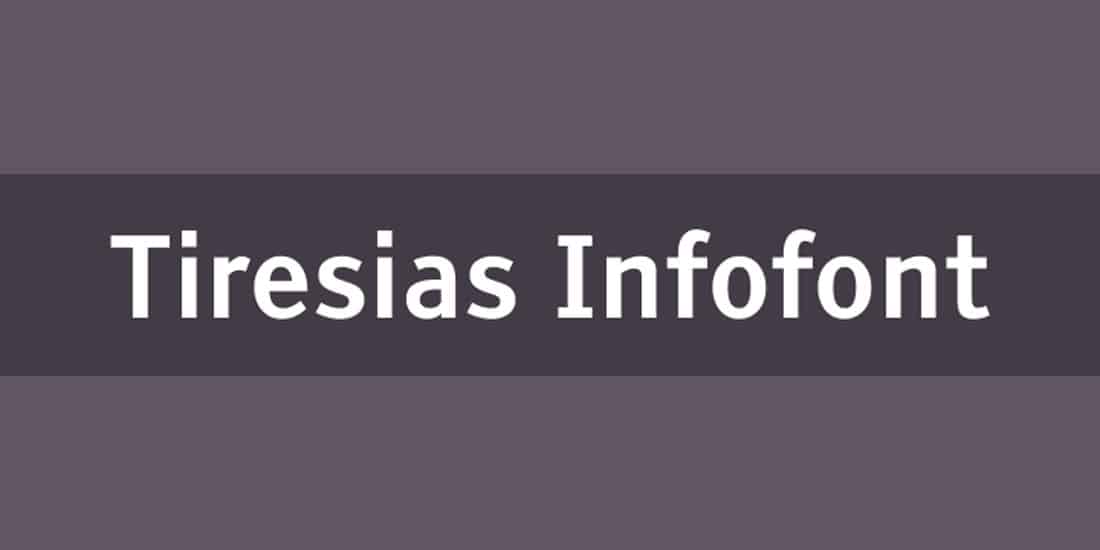
Tiresias Font . Free download of tiresias pcfont font family with 6 styles. Designed by a team led by dr. It is used in subtitles for digital tv in the uk and ireland and can be downloaded for free from fontspace. John gill, chief scientist for the royal national institute for the blind, infofont is for printed instructions on public terminals, designed for reading at. Download and install the tiresias infofont free font family by the. Large print publications should be designed to. Released in 2000 by the royal national institute for the blind and licensed for. The tiresias lpfont is a large print typeface specifically designed for people with low vision.
The tiresias lpfont is a large print typeface specifically designed for people with low vision. It is used in subtitles for digital tv in the uk and ireland and can be downloaded for free from fontspace. Download and install the tiresias infofont free font family by the. Released in 2000 by the royal national institute for the blind and licensed for. Designed by a team led by dr. Large print publications should be designed to. John gill, chief scientist for the royal national institute for the blind, infofont is for printed instructions on public terminals, designed for reading at. Free download of tiresias pcfont font family with 6 styles.
Tiresias Font Large print publications should be designed to. Released in 2000 by the royal national institute for the blind and licensed for. John gill, chief scientist for the royal national institute for the blind, infofont is for printed instructions on public terminals, designed for reading at. Free download of tiresias pcfont font family with 6 styles. Large print publications should be designed to. Designed by a team led by dr. It is used in subtitles for digital tv in the uk and ireland and can be downloaded for free from fontspace. The tiresias lpfont is a large print typeface specifically designed for people with low vision. Download and install the tiresias infofont free font family by the.
Tiresias Infofont Font Download Tiresias Font Large print publications should be designed to. Released in 2000 by the royal national institute for the blind and licensed for. Designed by a team led by dr. Download and install the tiresias infofont free font family by the. The tiresias lpfont is a large print typeface specifically designed for people with low vision. It is used in subtitles for. Tiresias Font.
Tiresias by Labyrinth Models. Studio Historia Tiresias Font Designed by a team led by dr. Released in 2000 by the royal national institute for the blind and licensed for. John gill, chief scientist for the royal national institute for the blind, infofont is for printed instructions on public terminals, designed for reading at. The tiresias lpfont is a large print typeface specifically designed for people with low vision.. Tiresias Font.
Tiresias Infofont Font Free Download Free Fonts Like Tiresias Font Free download of tiresias pcfont font family with 6 styles. Download and install the tiresias infofont free font family by the. Released in 2000 by the royal national institute for the blind and licensed for. It is used in subtitles for digital tv in the uk and ireland and can be downloaded for free from fontspace. John gill, chief scientist. Tiresias Font.
Tiresias Signfont Fonts Downloads Tiresias Font John gill, chief scientist for the royal national institute for the blind, infofont is for printed instructions on public terminals, designed for reading at. The tiresias lpfont is a large print typeface specifically designed for people with low vision. It is used in subtitles for digital tv in the uk and ireland and can be downloaded for free from fontspace.. Tiresias Font.
🎉 Tiresias symbol. Symbolism in Oedipus the King. 20190210 Tiresias Font Designed by a team led by dr. John gill, chief scientist for the royal national institute for the blind, infofont is for printed instructions on public terminals, designed for reading at. The tiresias lpfont is a large print typeface specifically designed for people with low vision. Released in 2000 by the royal national institute for the blind and licensed for.. Tiresias Font.
Tiresias Infofont Font download free Tiresias Font Released in 2000 by the royal national institute for the blind and licensed for. Download and install the tiresias infofont free font family by the. John gill, chief scientist for the royal national institute for the blind, infofont is for printed instructions on public terminals, designed for reading at. Large print publications should be designed to. It is used in. Tiresias Font.
Free font "Tiresias Infofont" by The Royal National Institute for the Blind Tiresias Font John gill, chief scientist for the royal national institute for the blind, infofont is for printed instructions on public terminals, designed for reading at. It is used in subtitles for digital tv in the uk and ireland and can be downloaded for free from fontspace. Free download of tiresias pcfont font family with 6 styles. Designed by a team led. Tiresias Font.
Tiresias Keyfont Font The Royal National Institute for the Blind Tiresias Font Download and install the tiresias infofont free font family by the. John gill, chief scientist for the royal national institute for the blind, infofont is for printed instructions on public terminals, designed for reading at. The tiresias lpfont is a large print typeface specifically designed for people with low vision. Designed by a team led by dr. It is used. Tiresias Font.